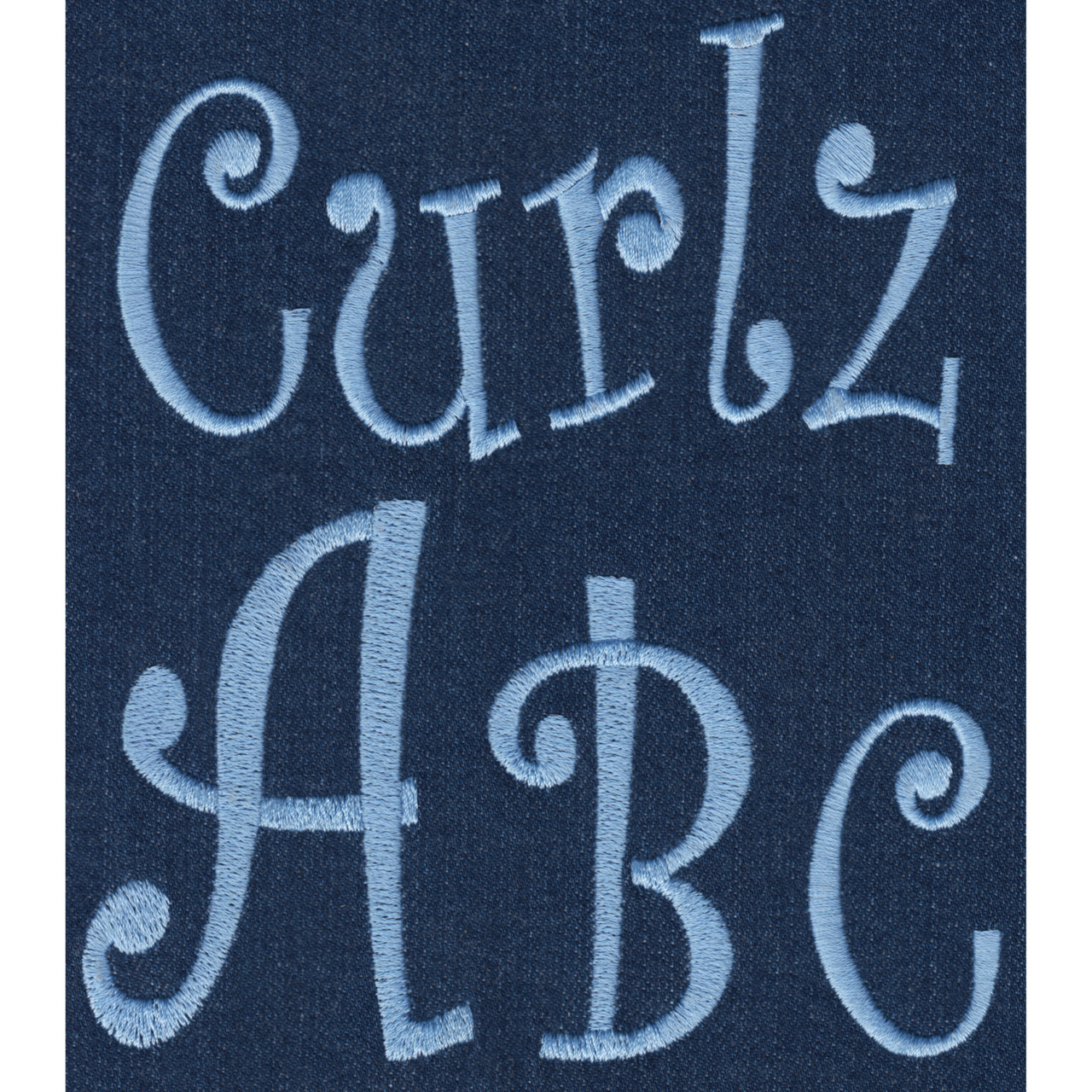
753 Curlz Bold Narrow Font
Curlz Bold Narrow Font comes in 1", 1.5" & 2" Satin Stitch and 2.5", 3", 3.5" & 4" SatinFill Stitch. Based on the standard Curlz Font with thicker lines and redesigned ends that curl up into large dots. In this narrow version letters and numbers are 25% narrower than the regular size so you can get longer names/words into smaller spaces. Includes uppercase letters, lowercase letters, numbers and ten punctuation marks. All sizes included in purchase. Size is based on the capital "A"...characters are of varying heights so some characters in the 3" and many in the 4" sets exceed hoop limitations of some standard 4x4 hoops.